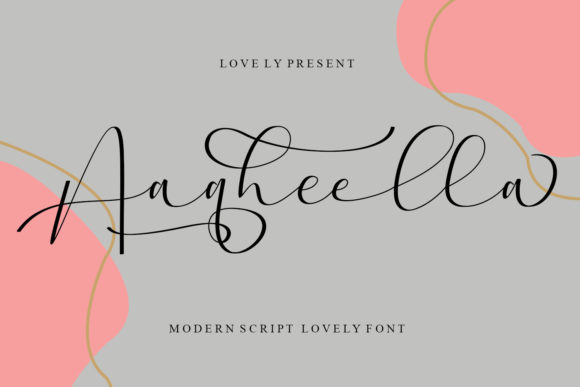
Embark on a romantic journey with Aaqheella, a script font that captures the essence of love and elegance. Its flowing curves and delicate strokes will add a touch of sophistication and charm to your design endeavors. Whether you're crafting wedding invitations, creating heartfelt cards, or designing logos that exude warmth and grace, Aaqheella will be your trusted companion.
With Aaqheella, you have the power to transform ordinary words into captivating expressions of art. Its timeless beauty will elevate your designs to new heights, leaving a lasting impression on your audience. Whether you're a seasoned designer or just starting your creative journey, Aaqheella will effortlessly enhance your projects with its enchanting allure.
Aaqheella's versatility extends beyond the traditional boundaries of script fonts. Its captivating nature lends itself to a multitude of design possibilities. From branding projects that demand a touch of sophistication to eye-catching headings that command attention, Aaqheella effortlessly adapts to your creative vision. Unleash your imagination and let Aaqheella guide you towards design masterpieces that resonate with your audience.
Immerse yourself in a world of romance and creativity with Aaqheella. Its delicate strokes and sweeping curves evoke a sense of enchantment, making it the perfect choice for capturing life's most cherished moments. Wedding invitations adorned with Aaqheella's graceful script will set the tone for a truly unforgettable celebration. From the save-the-date cards to the wedding programs, Aaqheella will narrate your love story with elegance and charm.
Aaqheella is more than just a font; it's an artistic expression that breathes life into your designs. Its PUA encoding unlocks a treasure trove of glyphs and swashes, empowering you to add intricate details and flourishes that elevate your creations to the realm of artistry. With Aaqheella, the possibilities are endless, inviting you to explore new frontiers of creativity and leave your mark on the world of design.